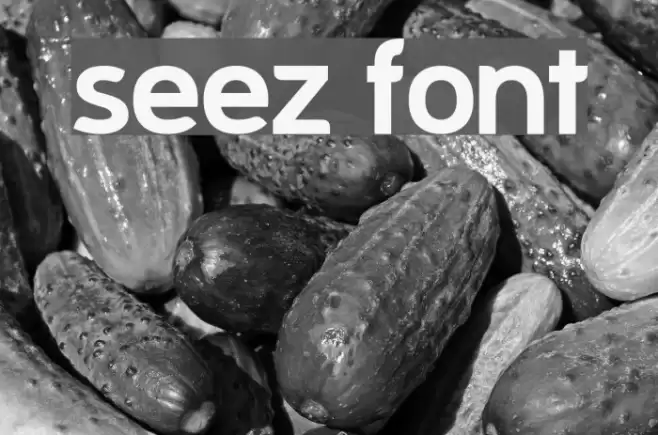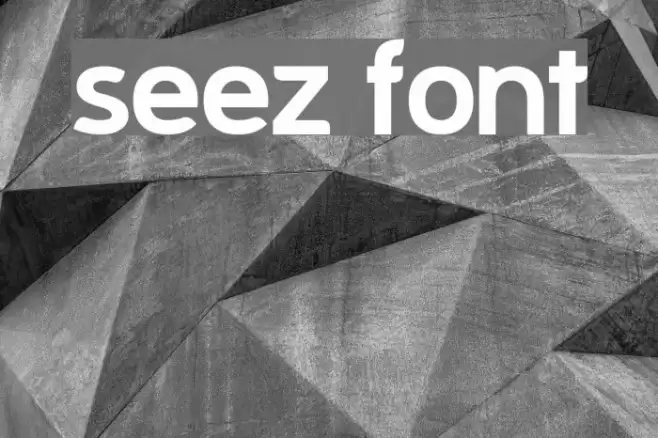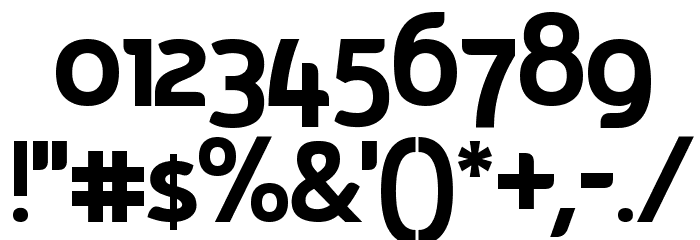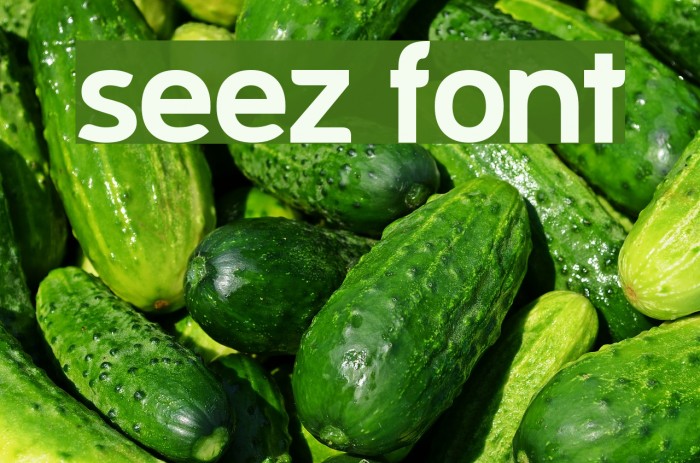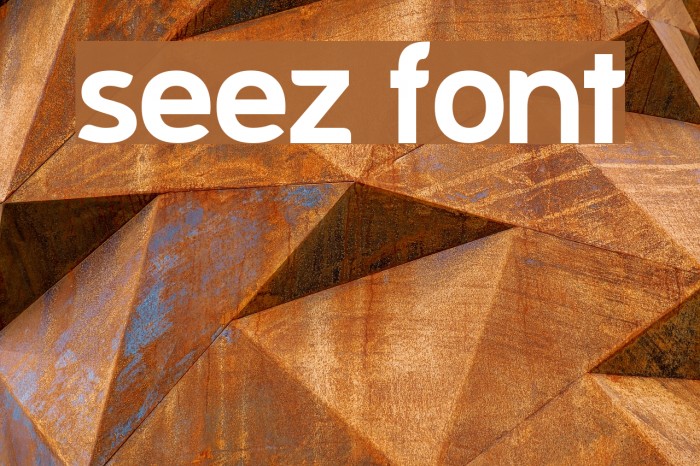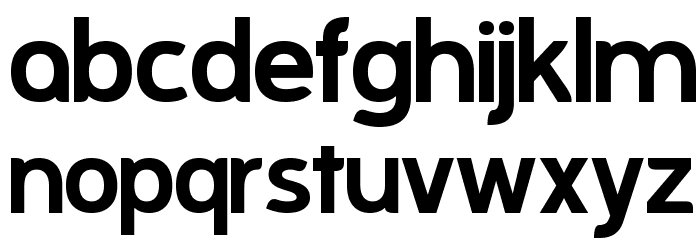
Seez
This font features a bold and rounded sans-serif style, characterized by its smooth curves and uniform stroke width. The letters are well-balanced, with a modern and clean appearance that makes it highly legible. The rounded edges give it a friendly and approachable feel, suitable for a variety of design contexts. The numbers and special characters maintain the same rounded aesthetic, ensuring consistency across all elements. This font is versatile, making it ideal for both digital and print media.
A bold, rounded sans-serif font with a modern and friendly style.
- Proposed Projects: Ideal for branding, advertising, packaging, and web design projects where a modern and approachable look is desired.
- Use Case: Headlines, Logos, Branding